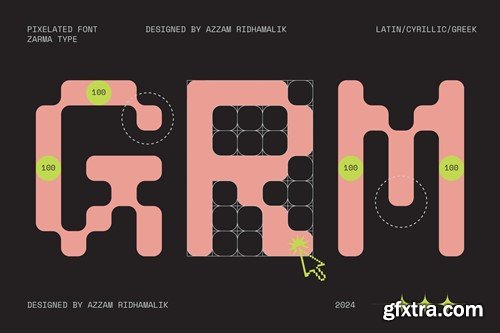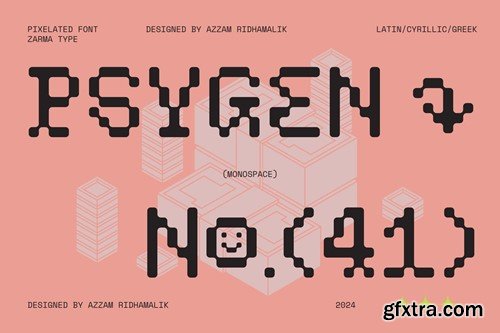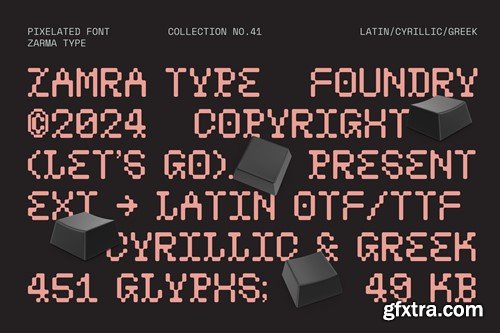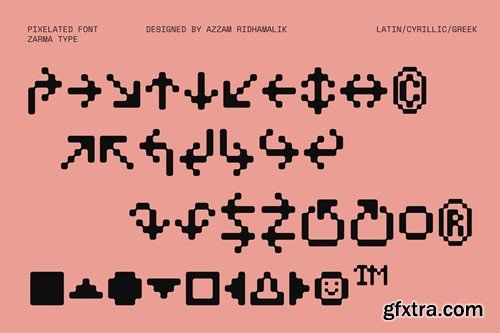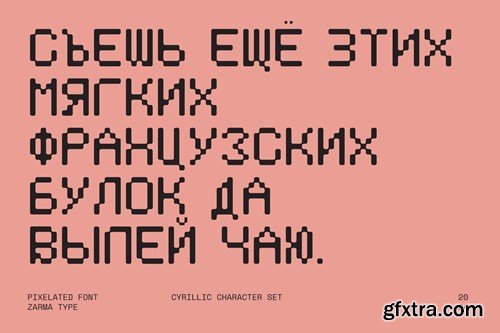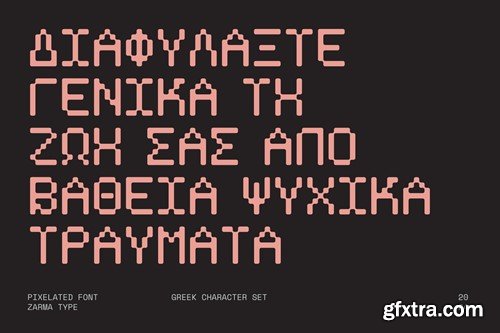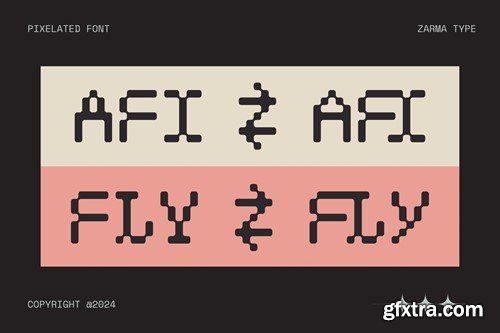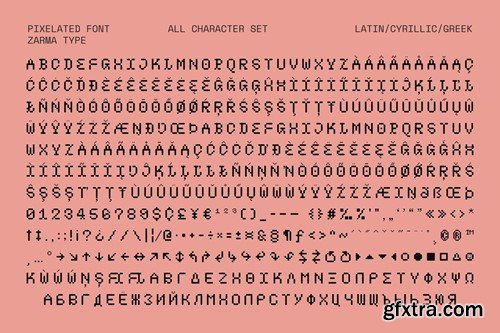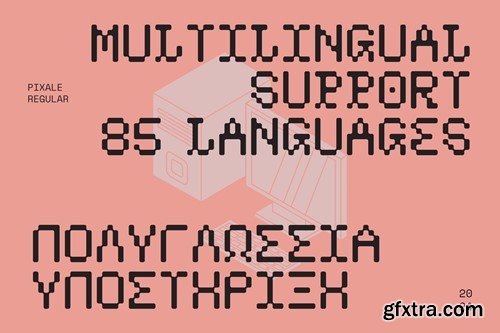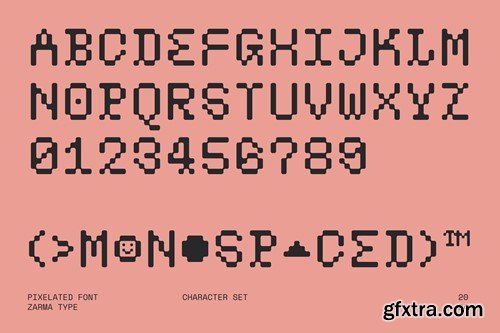
Psygen Font is a bold and monospace pixel font designed to bring a contemporary edge to retro aesthetics. Perfectly tailored for digital creatives, Psygen offers versatility across various projects like gaming, branding, and digital media. Key Features: Psygen Font supports over 85+ languages, covering Latin, Greek, and Cyrillic scripts, with characters like Ч, Ψ, Ω, Φ, and many more. Whether you're creating logos for tech startups, designing retro-themed posters, or crafting gaming UIs, Psygen is your go-to choice for pixel-perfect typography.